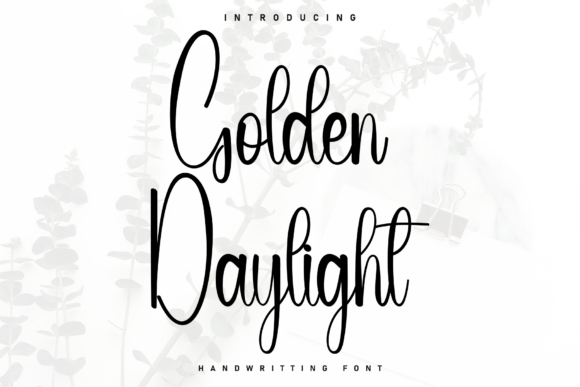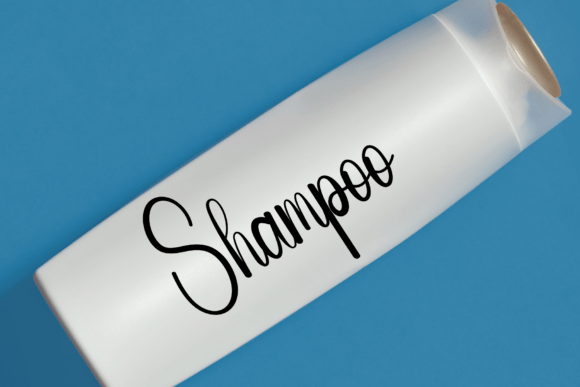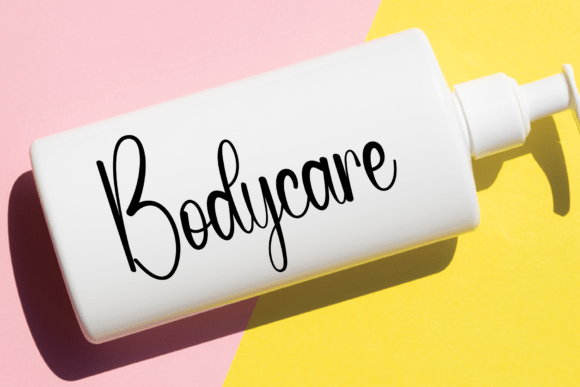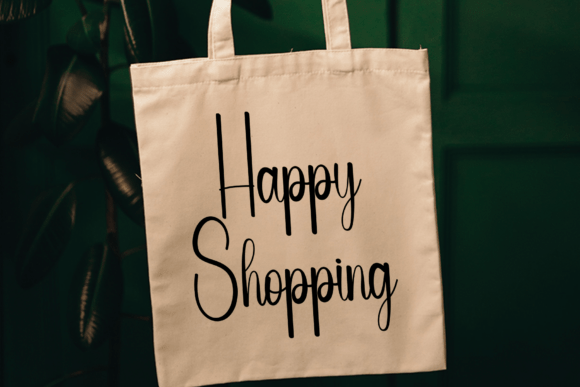
Golden Daylight Script Font
Infuse your next project with the unstudied confidence of Golden Daylight. Merging the rhythmic flow of a felt-tip marker with a refined, high-end sensibility, this typeface strikes a rare balance between athletic dynamism and understated opulence. It is the definitive choice for creators seeking a visual language that feels both high-octane and high-fashion. Whether you are sculpting a contemporary brand identity, curating bespoke wedding stationery, or directing an editorial lookbook, Golden Daylight delivers a tactile, organic aesthetic that remains sophisticated while retaining its effortless, approachable soul.